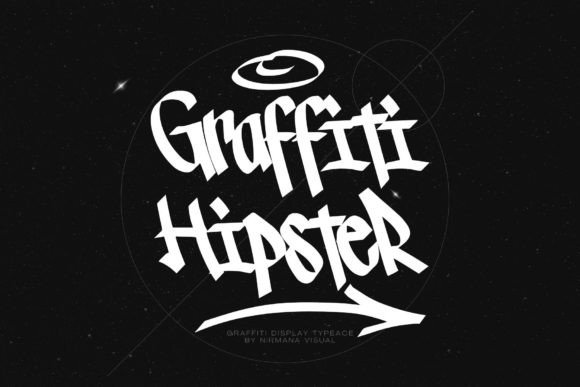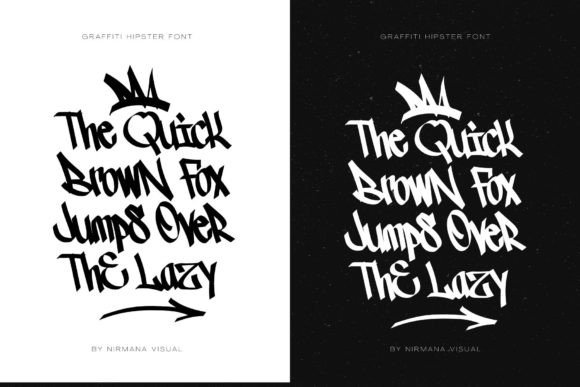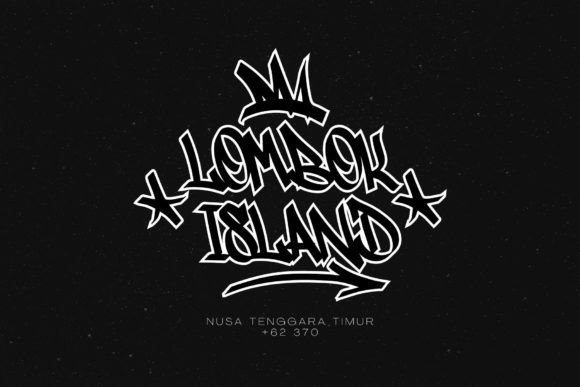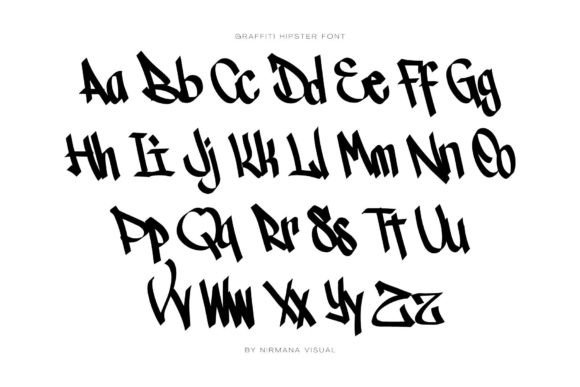
Graffiti Hipster Font
About the Graffiti Hipster Font
Unleash your creativity with Graffiti Hipster Font, a versatile font perfect for a wide range of applications. Graffiti Hipster is the ultimate graffiti display font for urban design. Bold, edgy, and full of attitude, this font brings the energy of the streets to any project. With its handcrafted look and feel, Graffiti Hipster captures the raw and authentic spirit of graffiti art, making it perfect for logos, posters, and album covers.
Graffiti Hipster excels in large-scale applications such as headlines, posters, and branding projects for streetwear brands or music artists where a bold, rebellious aesthetic is desired. Its strong character makes it unsuitable for body text or UI elements requiring high readability. Avoid using it for lengthy paragraphs or small sizes.
Pairing Graffiti Hipster effectively requires a contrasting typeface to balance its strong personality. A clean sans-serif like Montserrat or a geometric sans-serif such as Futura would provide a modern counterpoint, enhancing legibility in supporting text. For a more playful feel, consider pairing it with a rounded sans-serif font.
The font’s core personality is undeniably bold and rebellious, conveying a raw, urban energy. This makes it a powerful tool for projects needing a strong visual statement, but careful consideration of context is crucial to ensure effective communication.
Graffiti Hipster Font Usage Examples
Graffiti Hipster Font Example